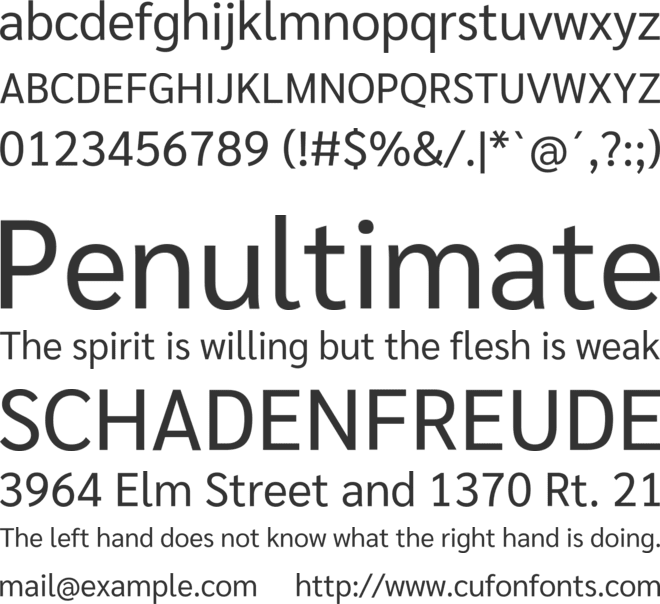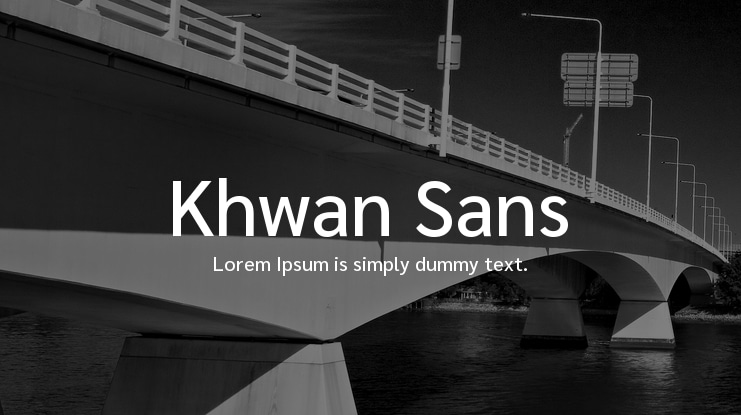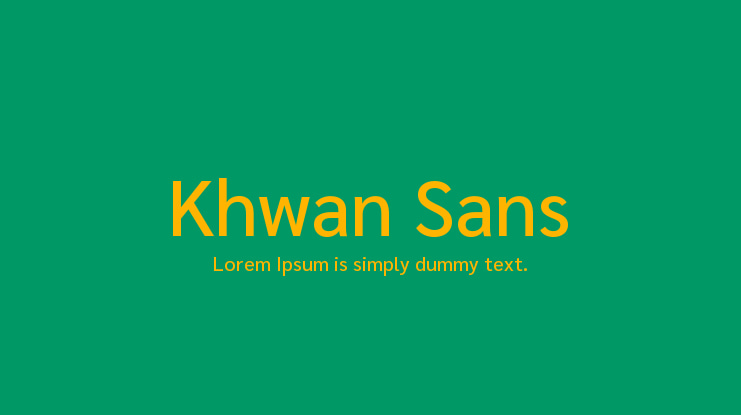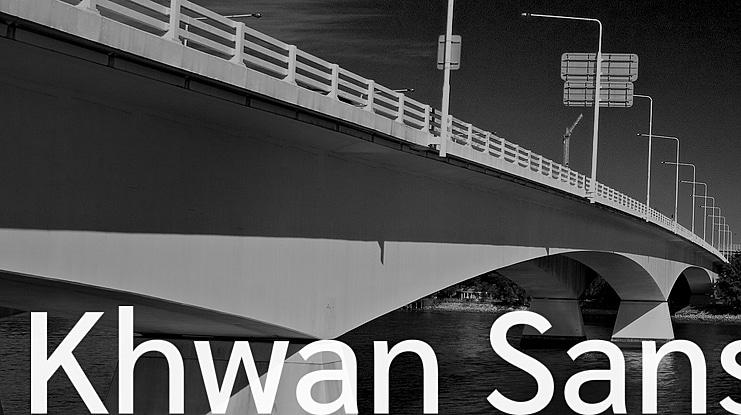
Khwan Sans is developed from the first release of Sarabun fonts from Cadson Demak. Changes are re-worked vertical metrics, an R from alternate glyphs, and a true oblique form.